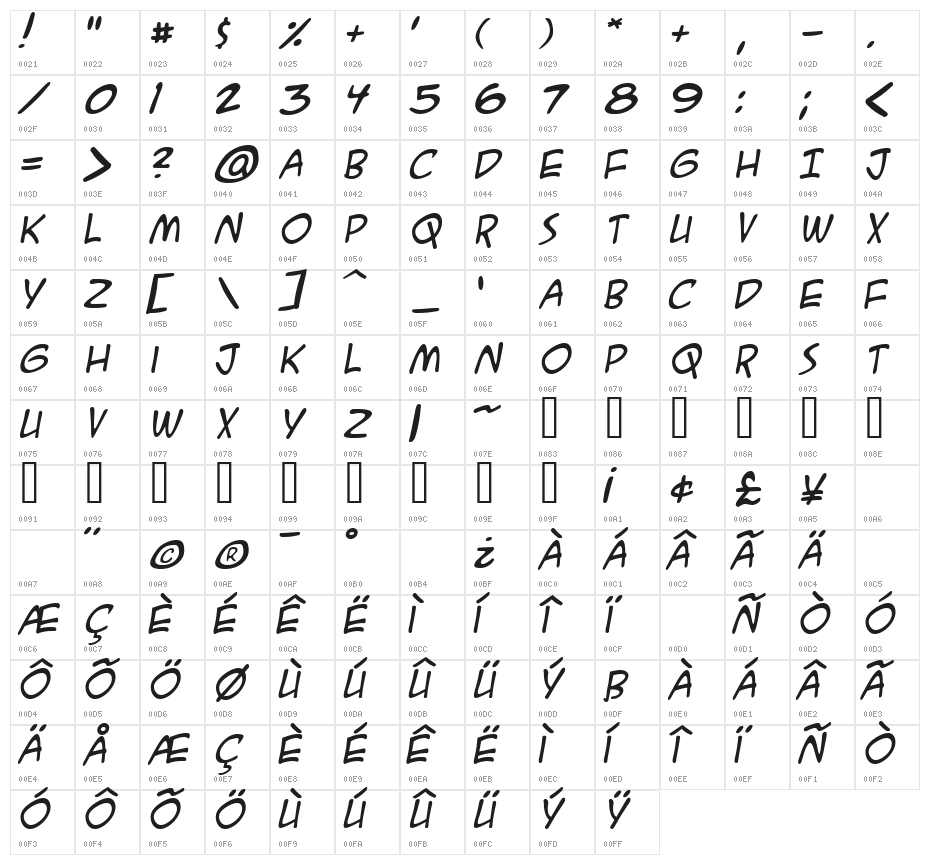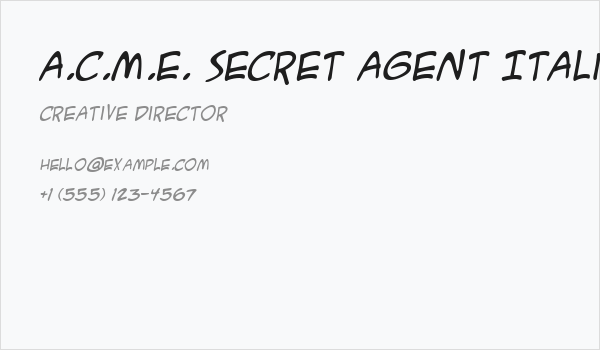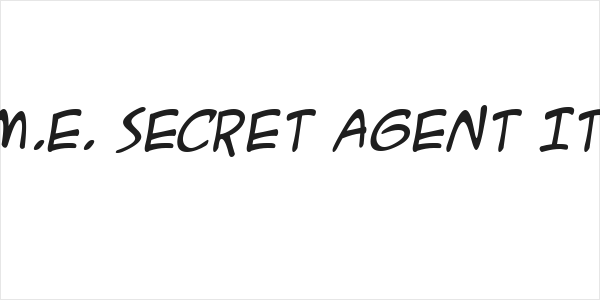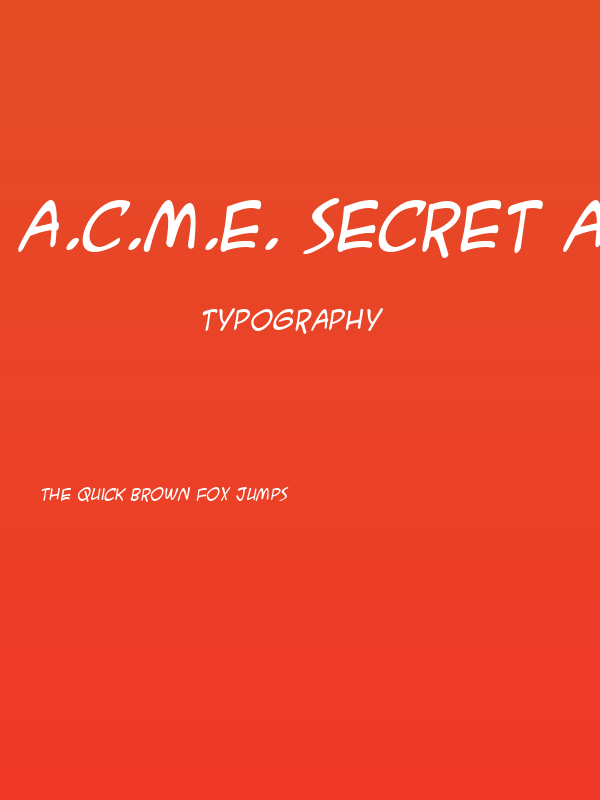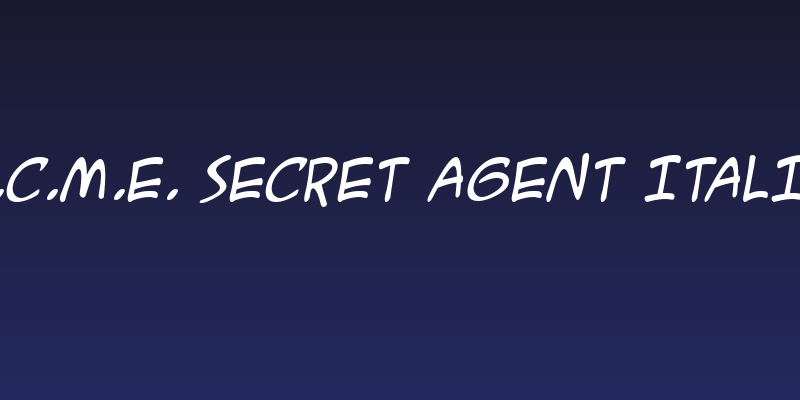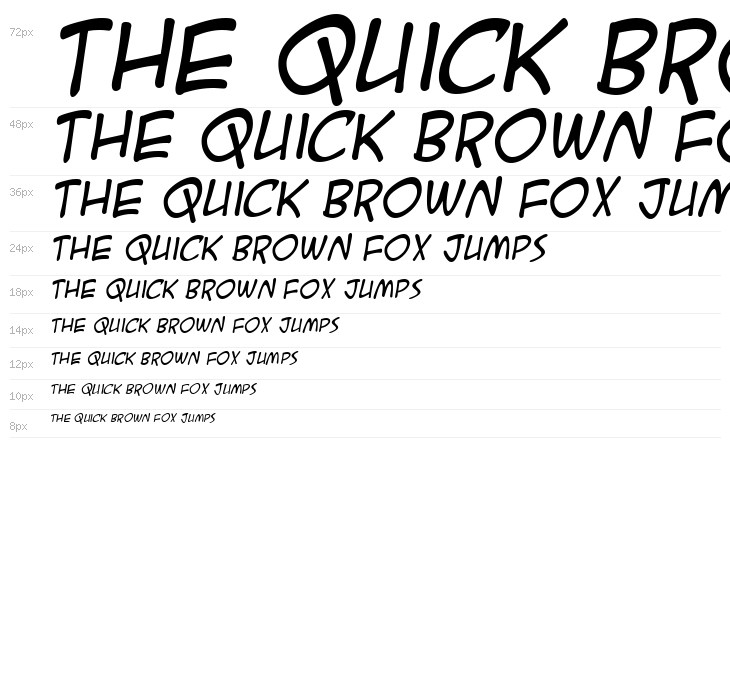
A.C.M.E. Secret Agent Italic Font
A.C.M.E. Secret Agent Italic Description
This font features a playful and dynamic script style with a handwritten appearance. The letters are slightly slanted, giving it an italicized look that adds a sense of motion and energy. The strokes are smooth and fluid, with a consistent thickness that maintains readability while conveying a casual and informal tone. The numbers and special characters follow the same style, ensuring a cohesive look across all text elements. This font is ideal for projects that require a personal touch or a sense of spontaneity.